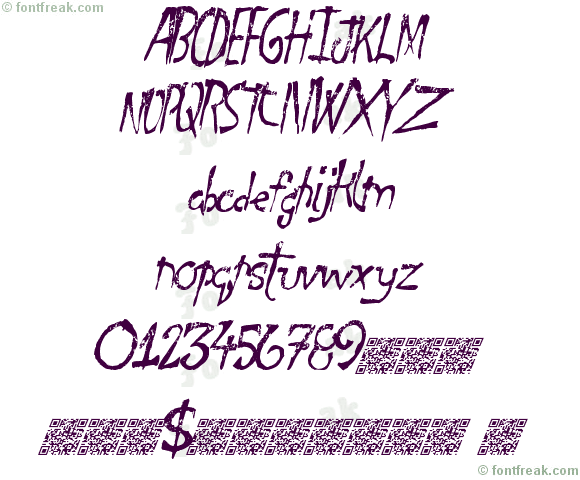
FinalDays
About FinalDays
FinalDays by Xerographer Fonts is a compelling display typeface that captures a raw, artistic essence. This font, released in 2014 and available as freeware, showcases a distinct handwritten style that combines spontaneity with a touch of grunge. The strokes are varied in weight, offering a dynamic contrast that enhances its visual appeal. The slightly uneven spacing among characters adds to the authenticity of the handwritten look, making each letter feel personal and expressive. Decorative elements are minimal, focusing more on the organic flow of the letters, which lends itself to a unique character rather than rigid uniformity.
FinalDays is particularly well-suited for a variety of creative applications. Its edgy aesthetic makes it an excellent choice for poster designs, especially for music events or art shows, where a sense of rebellion and individuality is desired. Additionally, it can elevate the visuals of branding projects for small businesses, particularly in the arts, craft, and lifestyle sectors. Wedding invitations can also benefit from the font's informal charm, making them feel personalized and special. Restaurant menus that aim to capture a rustic or artisanal vibe will find this font to be an ideal fit, adding warmth and character.
Targeted towards graphic designers, small business owners, and content creators, FinalDays offers a refreshing alternative to conventional typefaces. It empowers users to convey emotion and personality through text, allowing their designs to resonate more deeply with audiences. The FinalDays font free download opens up opportunities for creatives to infuse their projects with a distinctive style that stands out in a crowded marketplace. This font not only serves as a design tool but also as a means of self-expression, making it a remarkable addition to any designer's toolkit.